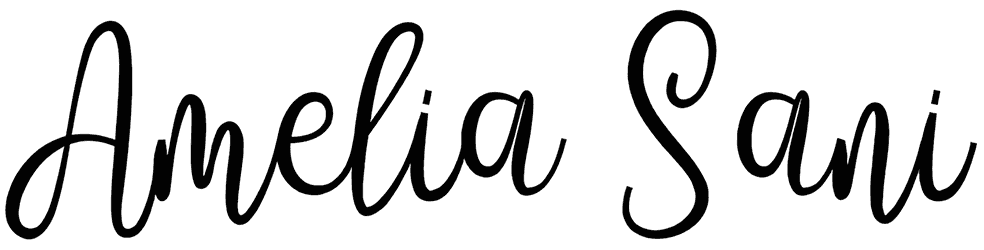
Amelia Sani Font
Whether you’re creating a poster, a flyer, a movie title, or anything else, the modern script calligraphy font Amelia Sani will add a touch of elegance. This font’s attached, one-of-a-kind letters will provide a romantic air to your design and catch more people’s eyes.
If you want your design project to look sophisticated, choose the Amelia Sani font. This feminine font, which can be downloaded freely from RB’s font library, can be used to greatly improve your designs.